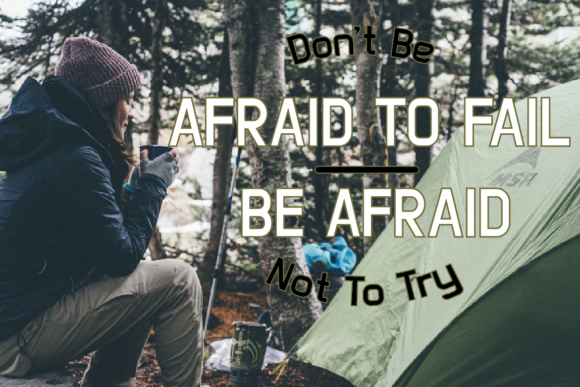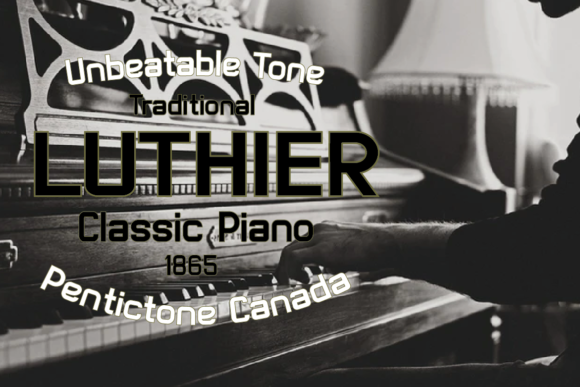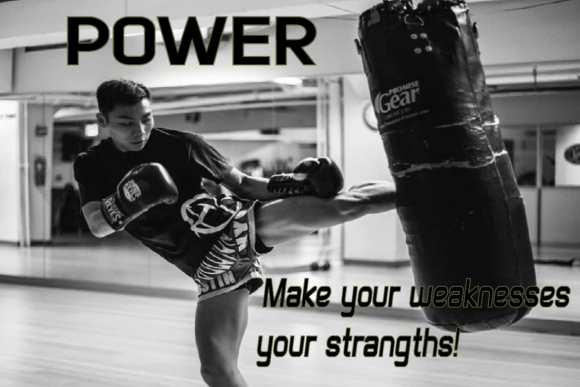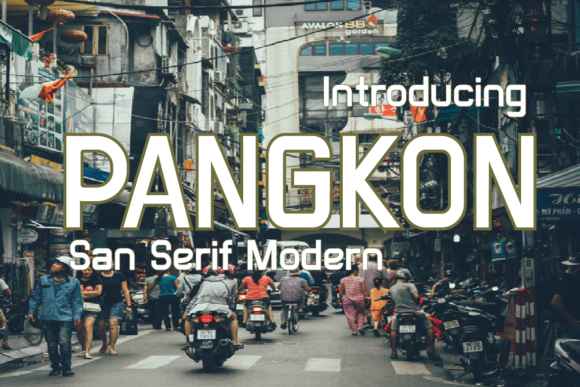
Introduction to Pangkon Font
Pangkon is a cool, bold, modern and sans serif font.
Key Features of Pangkon Font
Why Choose Pangkon Font?
Pangkon Font offers exceptional quality and versatility, making it a valuable addition to your design toolkit. Whether you’re creating for personal projects or commercial use, Pangkon Font delivers professional results.